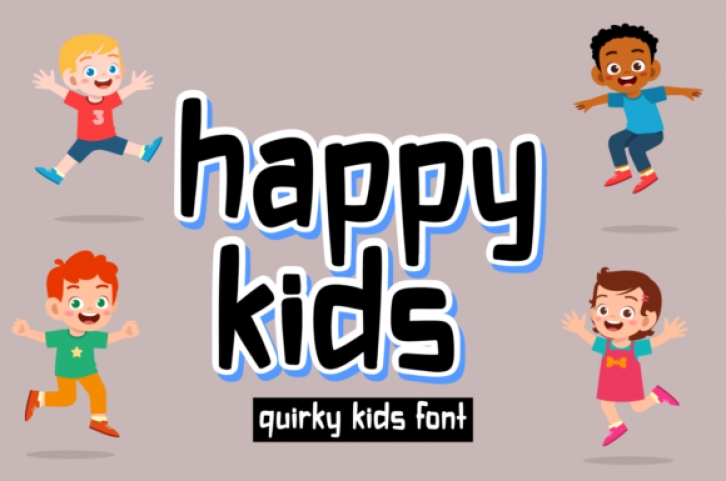
Happy Kids is a fun and quirky display font. It embodies playfulness and authenticity and is the perfect choice for any children activity or school project.